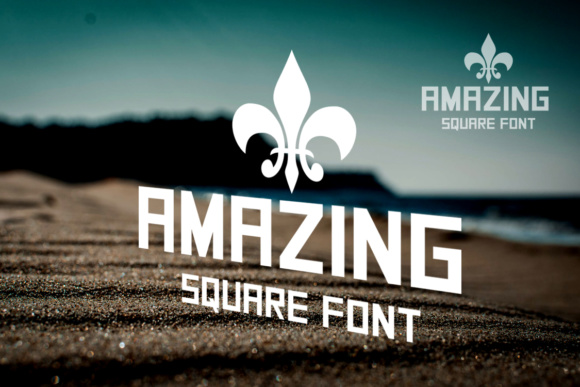
Feast your eyes on Duskersquare, an awe-inspiring sans serif font family that will transport your creative projects to new heights of visual appeal. Crafted with meticulous attention to detail by the acclaimed font artist, Laks Mi, Duskersquare is not just a font; it's an artistic masterpiece that unlocks a world of design possibilities.
Immerse yourself in the world of Duskersquare and let your imagination run wild. Picture your designs adorned with the sleek lines and captivating curves of this typographic gem. Whether it's t-shirts, logos, posters, or any other creative endeavor, Duskersquare will effortlessly elevate your work to new levels of sophistication and style.
Say goodbye to ordinary fonts and embrace Duskersquare, a font that speaks volumes even in silence. Its captivating presence will command attention and leave a lasting impression on your audience. With its versatile nature, Duskersquare seamlessly adapts to a wide range of projects, from playful and whimsical to elegant and timeless.
Don't settle for mediocrity. Choose Duskersquare and unlock the true potential of your creative vision. Let its remarkable charm enhance your designs and leave an indelible mark on the world. Experience the Duskersquare difference today and elevate your design game to new heights.